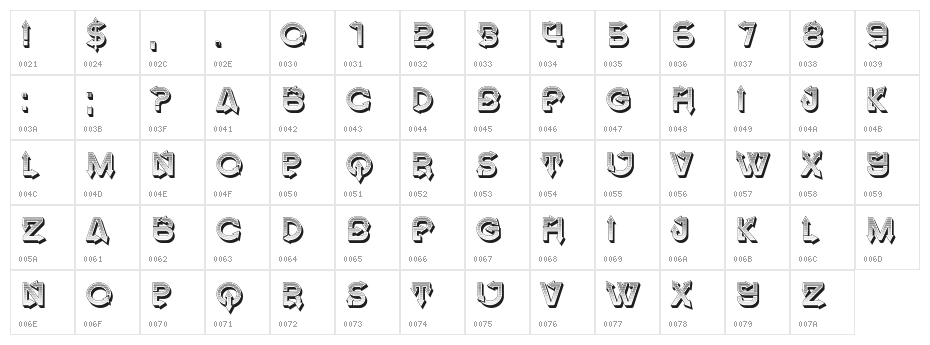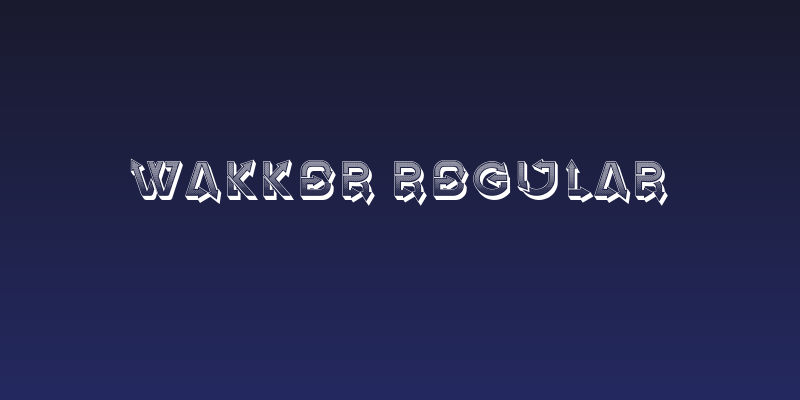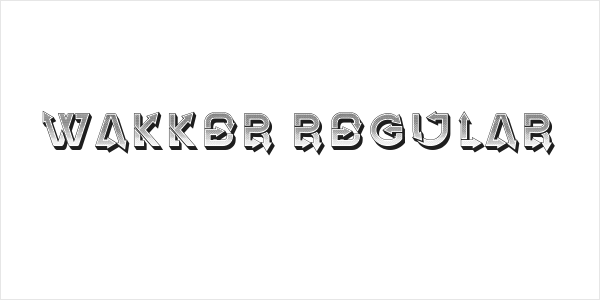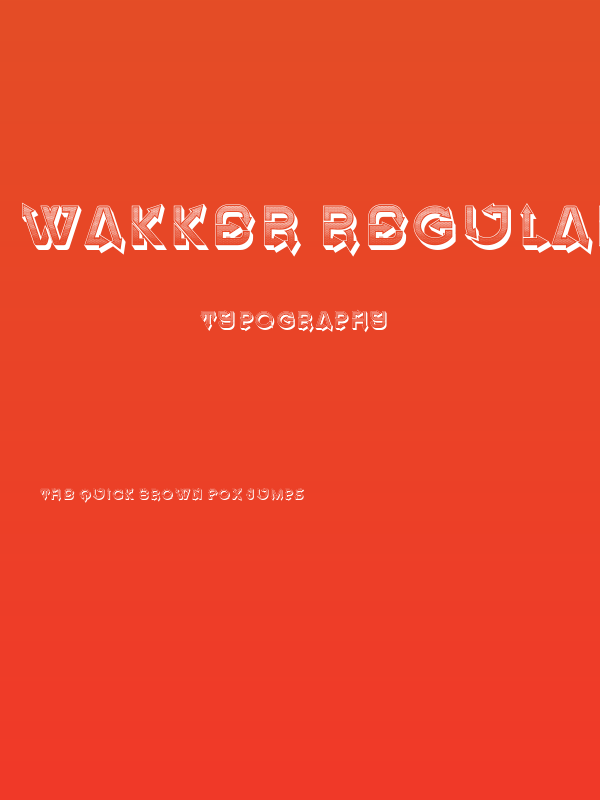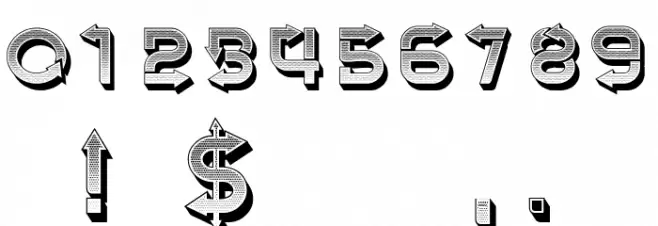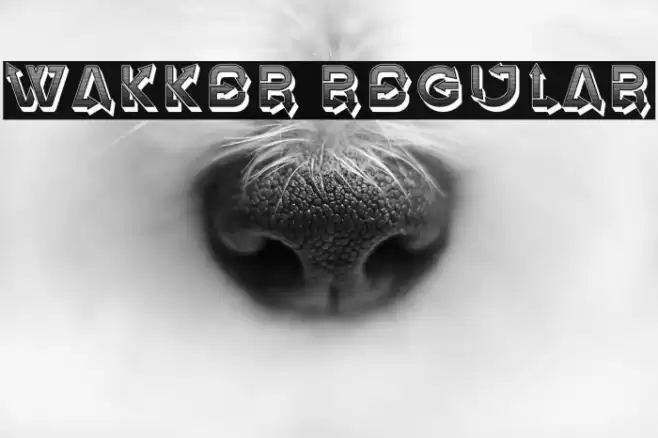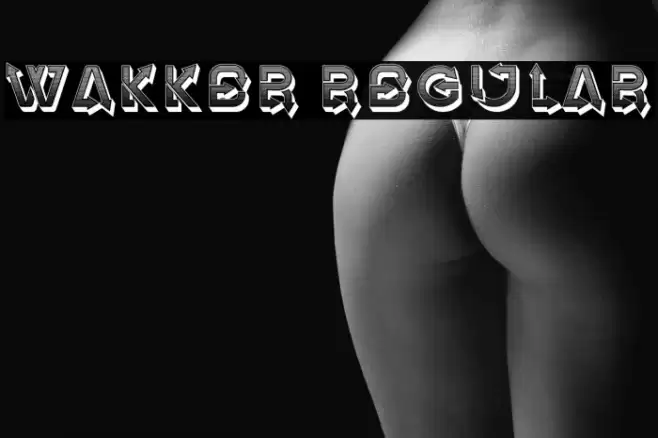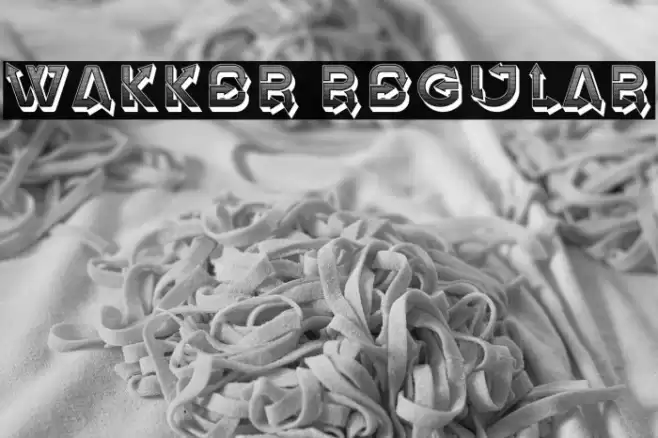
Wakker Regular Font
Wakker Regular Description
This font features a bold, decorative style with a three-dimensional effect that gives each character a sense of depth and shadow. The letters are crafted with a unique geometric design, incorporating sharp angles and distinct outlines. The uppercase and lowercase letters maintain a consistent style, while the numbers and special characters complement the overall aesthetic. This font's intricate detailing and bold presence make it stand out, suitable for eye-catching designs.